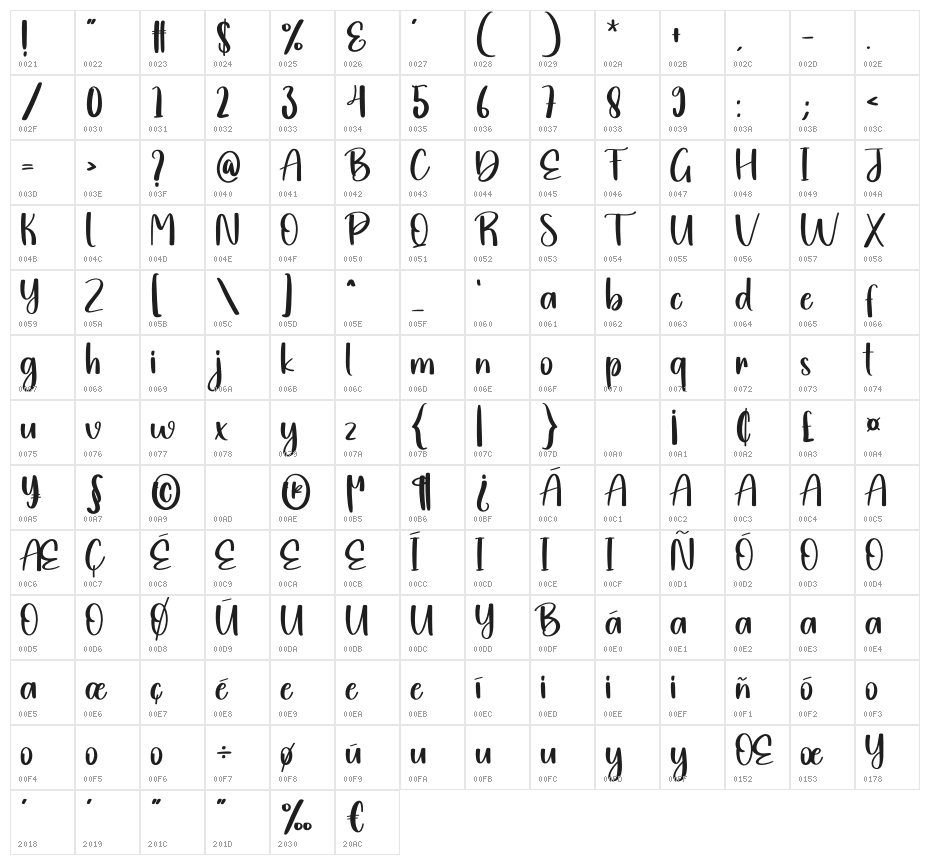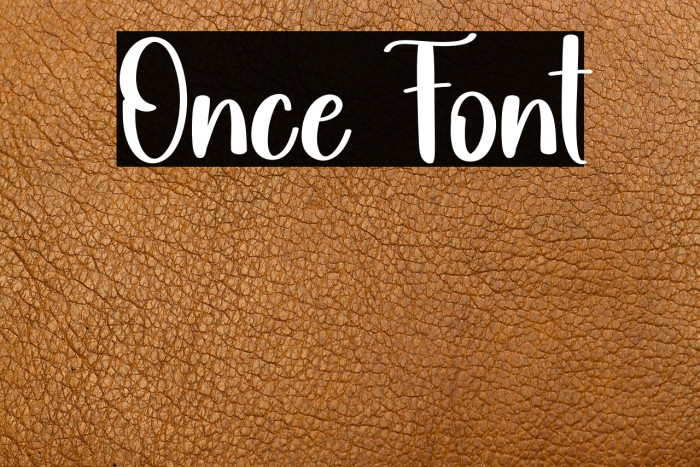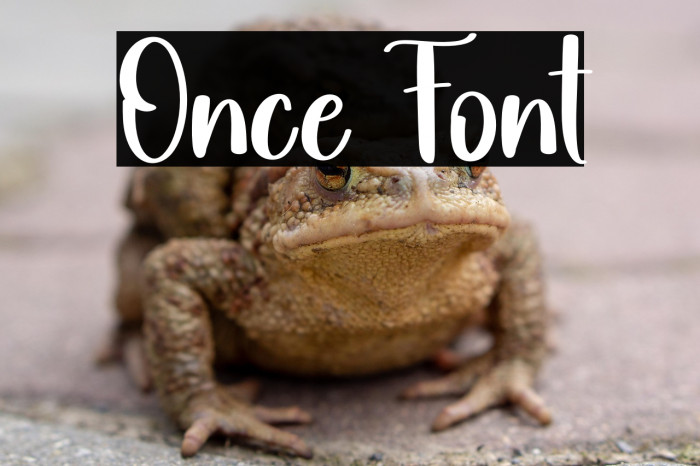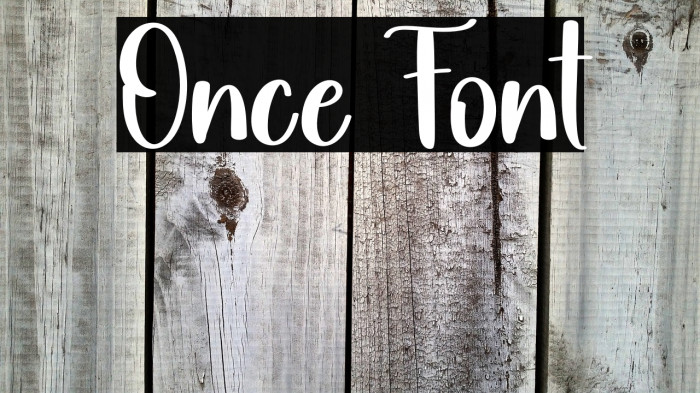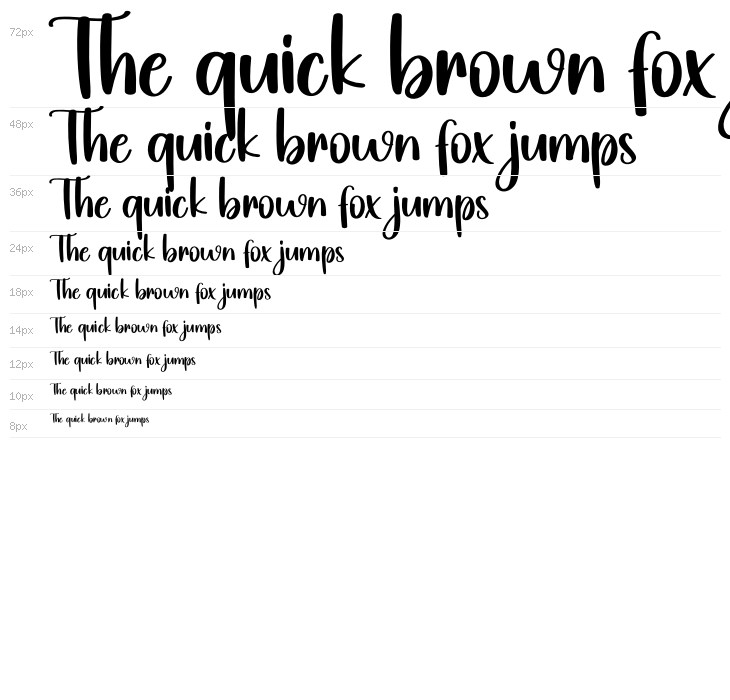
Once Font
Once Description
A playful, handwritten script font with smooth, flowing strokes and a casual, brush-pen appearance. The characters are slightly irregular, giving a lively and informal feel, with tall ascenders and rounded forms.
| Overall Style | Decorative, Playful, Modern |
| Use Case | Logos, Headlines, Invitations, Posters |
| Proposed Projects | Greeting cards, invitations, branding, social media graphics, posters. |